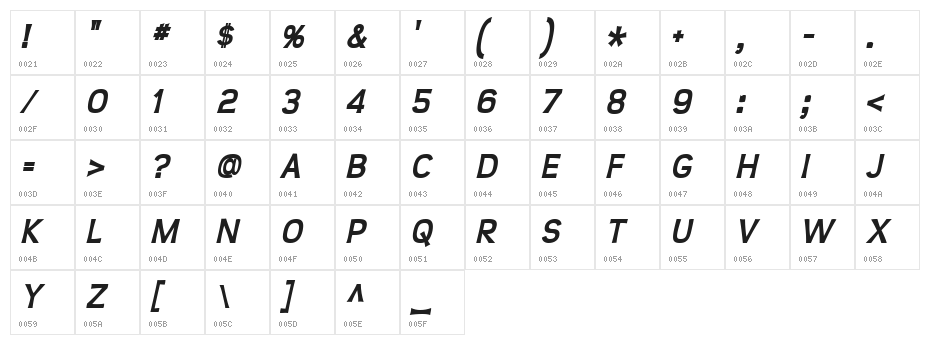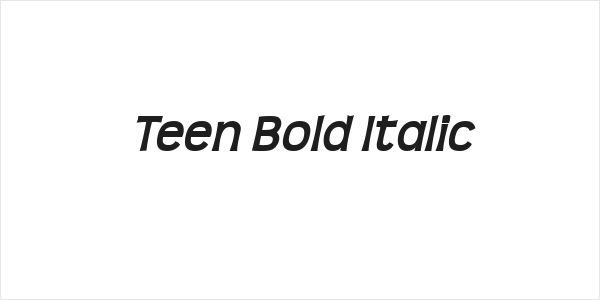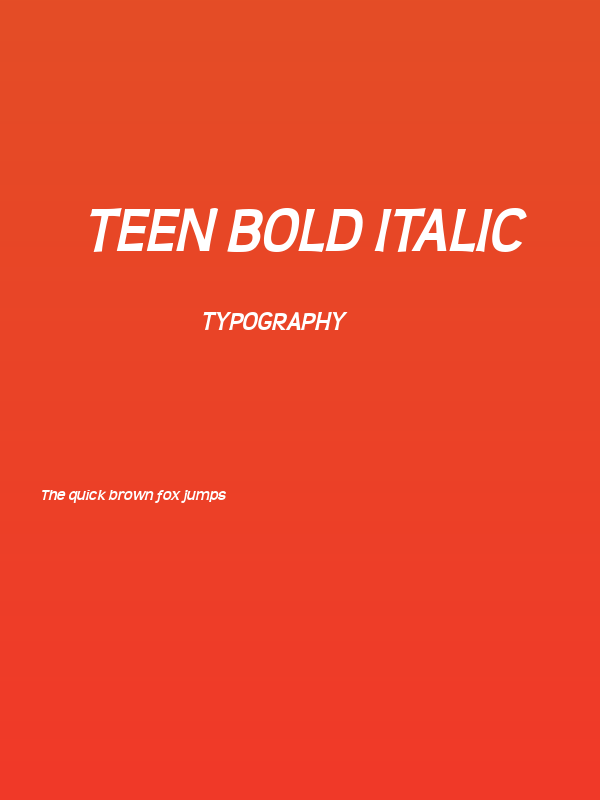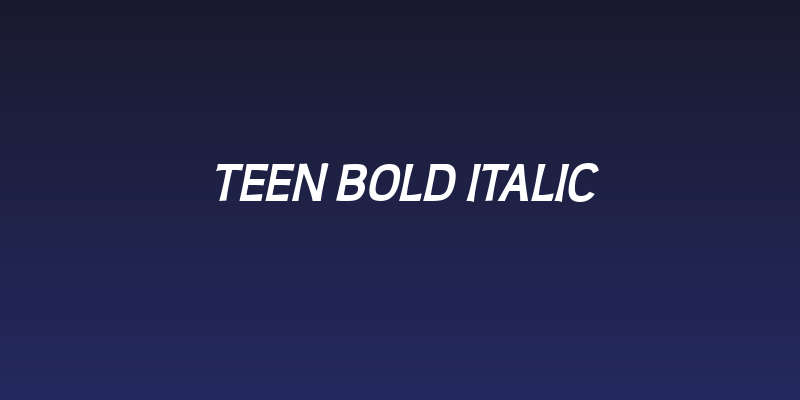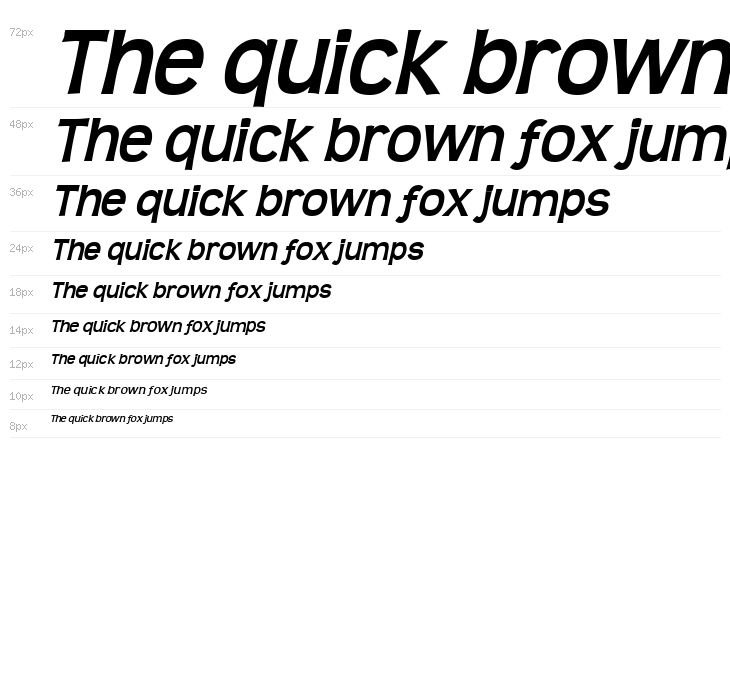
Teen Bold Italic Font
Teen Bold Italic Description
This font features a bold and italicized style, characterized by its strong presence and dynamic slant. The letters are well-defined with a consistent stroke weight, providing a sense of stability and modernity. The uppercase and lowercase characters maintain a uniform appearance, while the numbers and special characters are designed to complement the overall aesthetic. The italic angle adds a sense of motion, making it suitable for applications that require emphasis and attention. Its clean lines and contemporary feel make it versatile for various design projects.
| Use Case | Headlines, Logos, Advertising |
| Proposed Projects | Ideal for branding, advertising, headlines, and digital media where a strong and modern impression is needed. |